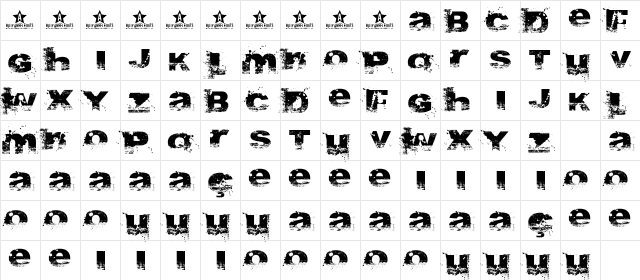
A bite__ Regular
Foundry: Billy Argel
Designer: Billy Argel
Design Context for A bite__
A bite__ is a composed and adaptable typeface that performs quietly and consistently across a wide range of design contexts.